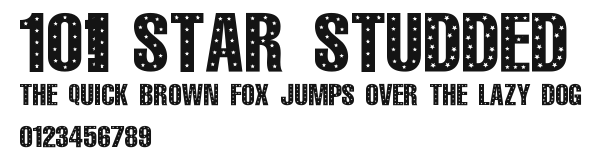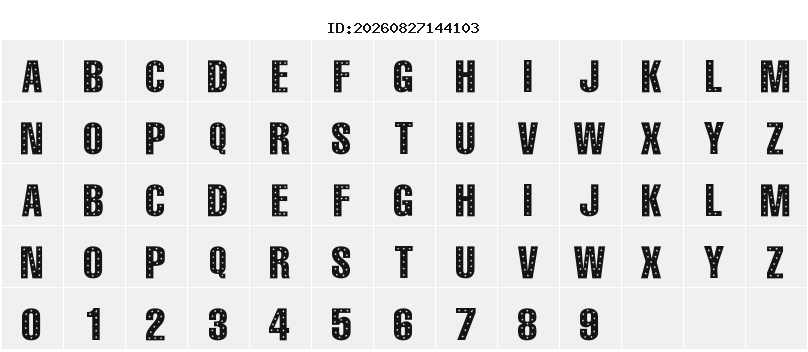
About 101! StaR StuDDeD.ttf
101! StaR StuDDeD.ttf is a modern, elegant sans-serif font designed for ultimate readability and visual harmony. Perfect for branding, headlines, web design, and print materials.